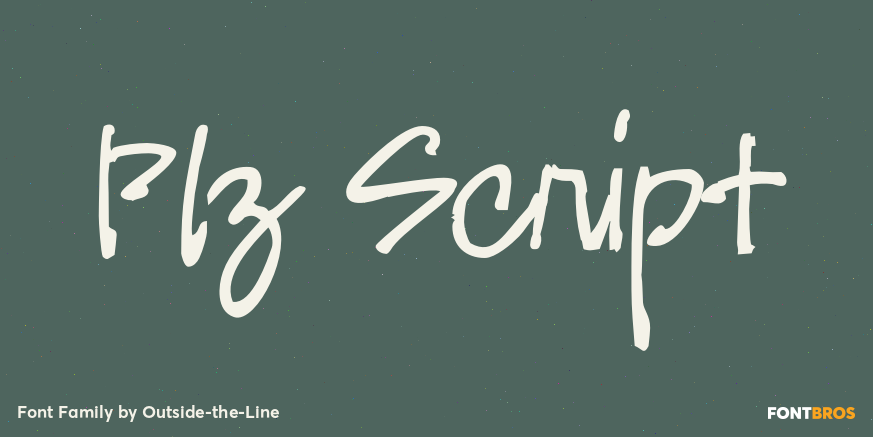
HomeFont BrosDistressedPlz Script DistressedScripts: CasualHandwrittenWacky Plz Script FacebookXPinterestWhatsApp 1 of 1 About Plz Script is a warm and friendly script font that can be used as body copy or for headlines. Great with Architectural Letter or Plz Print.  DOWNLOAD ON FONT BROSThis font is sold and delivered by Font Bros. Font Canyon may earn a commission if you buy through this link. People also explored Muthia Font Hello Bird Font Goldiolus Font Karasi Font Captain Hook Green House Font Snowgirl Font Vemina Script Font Biyonella Font 211 0 TagsPlz Script Font Previous articleBlockedNext articlePalm Frond LEAVE A REPLY Cancel reply Comment: Please enter your comment! Name:* Please enter your name here Email:* You have entered an incorrect email address! Please enter your email address here Website: Save my name, email, and website in this browser for the next time I comment. Personal Use Free Arnitta Callina Personal Use Free Read more about this font Beattingvile Personal Use Free Read more about this font Sunshine Tropical Font Personal Use Free Read more about this font Vanchrome Personal Use Free Read more about this font BLOG How to Install and Use Fonts on Windows, macOS, and Web Projects How to Install and Use Fonts on Windows, macOS, and Web Projects Fonts are a crucial part of design and branding. Whether you’re designing a... Top 10 Handwritten Fonts That Elevate Your Designs The 10 Best Handwriting Fonts to Add Personality to Your Designs Fonts That Capture the Spirit of New York City